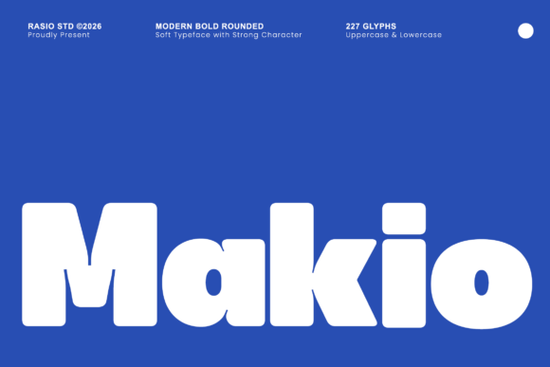
When you're looking for a font that can add a bold and friendly presence to your designs, Makio Font is a great choice. This modern, bold, rounded sans-serif font strikes a perfect balance between softness and strength, making it ideal for a variety of creative projects.
What Makes Makio Font Stand Out?
Makio is designed with thick, plump vertical blocks and perfectly pillowed corners, giving it a smooth and tightly packed appearance. The generous x-height and heavy visual weight make text blocks look incredibly solid and punchy. This makes it an excellent choice for any project that needs a strong, confident, and readable typeface.
Why Choose Makio for Your Design Projects?
Makio's clean perimeter line and high scannability make it a versatile font for various applications. Whether you're working on vibrant tech startup branding, contemporary streetwear labels, or bold app interface designs, Makio can be the centerpiece that ties your design together. It also works well for modern food and beverage packaging, retro-futuristic poster titles, and eye-catching social media graphics.
How to Use Makio in Different Creative Projects
Here are some practical ways to incorporate Makio into your designs:
- Vibrant Tech Startup Branding: Use Makio for logos, business cards, and website headers to create a modern, bold, and approachable brand identity.
- Contemporary Streetwear Labels: Add Makio to your clothing tags, product descriptions, and promotional materials to give your brand a fresh and trendy look.
- Bold App Interface Designs: Incorporate Makio into your app's user interface to make buttons, headings, and other elements stand out and be easily readable.
- Modern Food and Beverage Packaging: Use Makio for product labels, menus, and signage to create a visually appealing and memorable brand presence.
- Retro-Futuristic Poster Titles: Apply Makio to your poster titles to give them a unique, futuristic yet nostalgic feel that grabs attention.
- Eye-Catching Social Media Graphics: Use Makio for your social media posts, banners, and stories to create engaging and visually striking content.
Comparing Makio with Other Sans-Serif Fonts
While there are many sans-serif fonts available, Makio stands out with its distinctive rounded edges and heavy visual weight. For example, if you compare it with Metha Font, you'll notice that Makio has a more robust and friendly presence, making it ideal for projects that require a bold and welcoming aesthetic.
Tips for Using Makio Effectively
To get the most out of Makio, here are a few tips:
- Balance with Lighter Fonts: Pair Makio with lighter, more delicate fonts to create a balanced and harmonious design.
- Use Adequate Spacing: Ensure there is enough spacing between letters and lines to maintain readability, especially in longer text blocks.
- Experiment with Colors: Try different color combinations to see how Makio looks in various contexts, from vibrant and bold to subtle and elegant.
- Test on Different Backgrounds: Make sure Makio is legible on both light and dark backgrounds to ensure it works well in all your design scenarios.
By following these tips, you can effectively use Makio Font to enhance the visual impact and professionalism of your design projects.